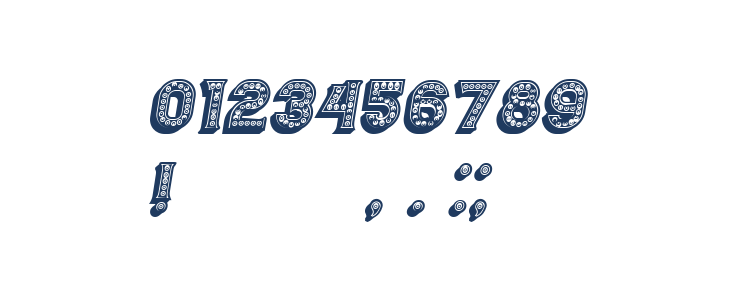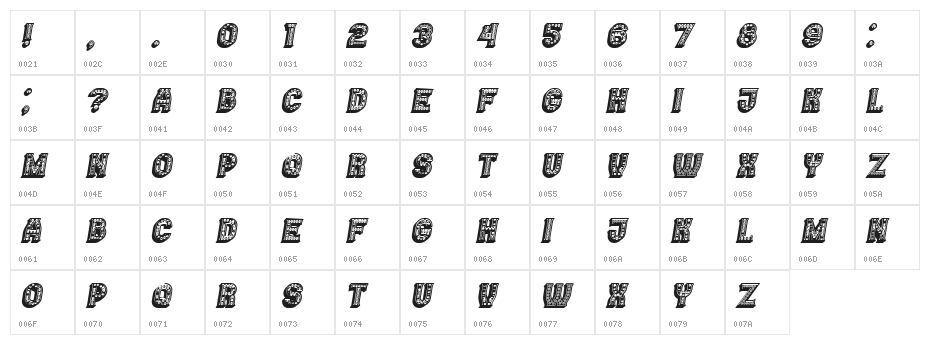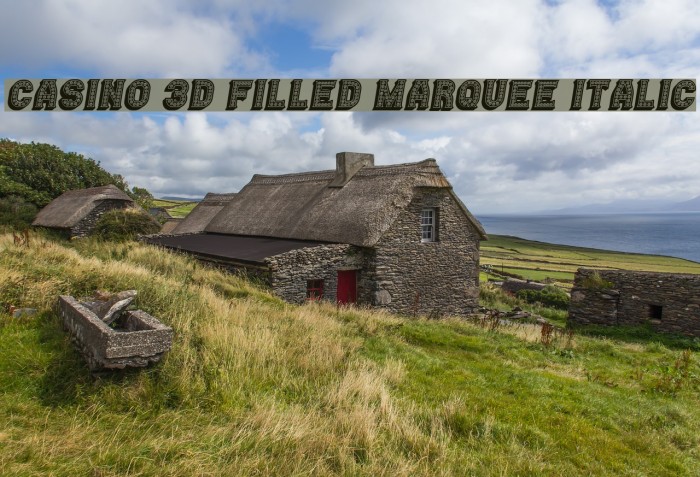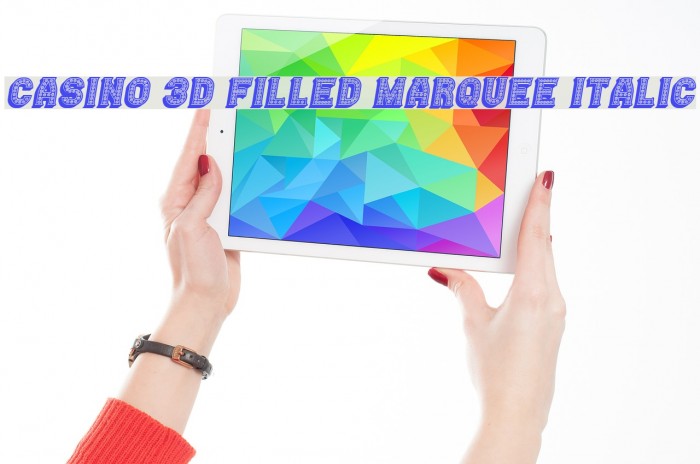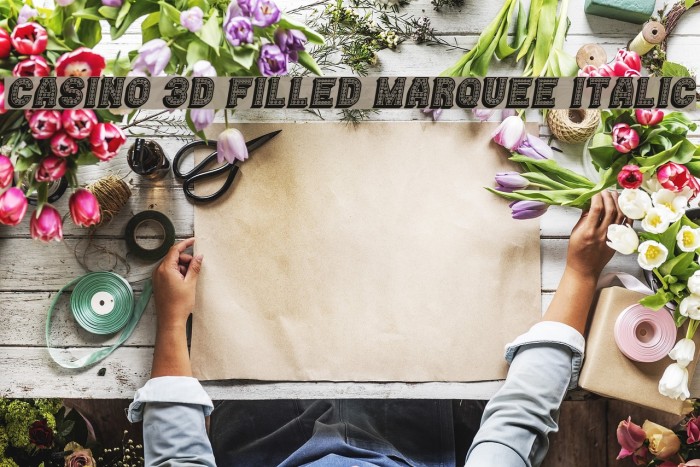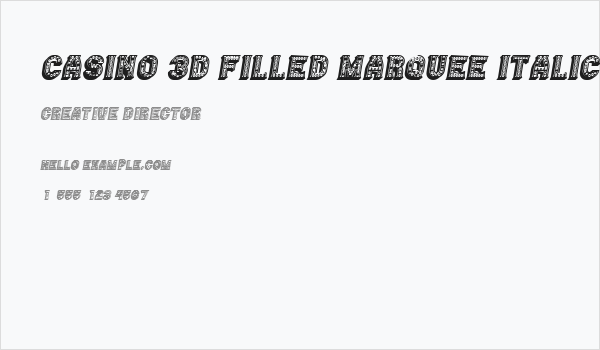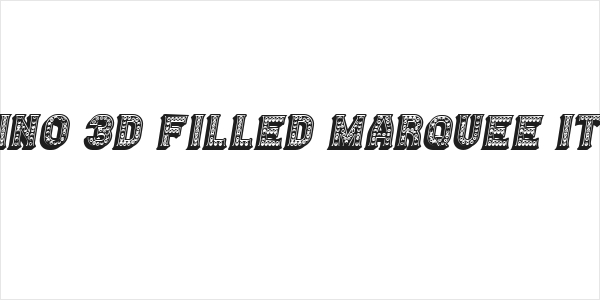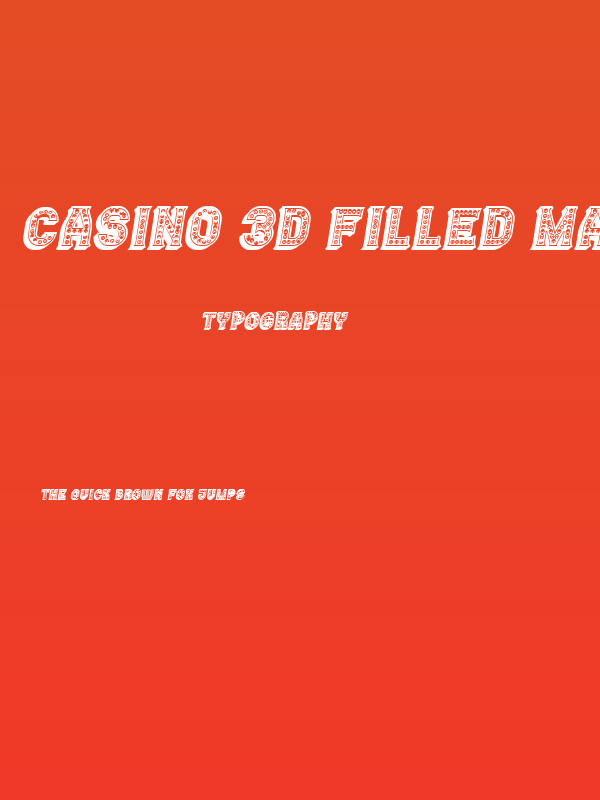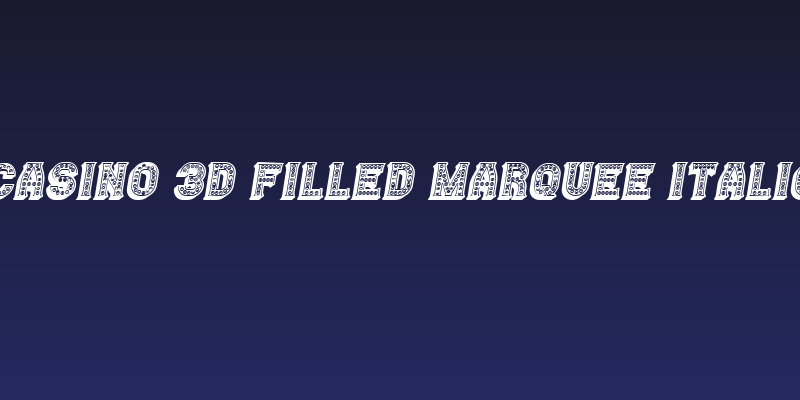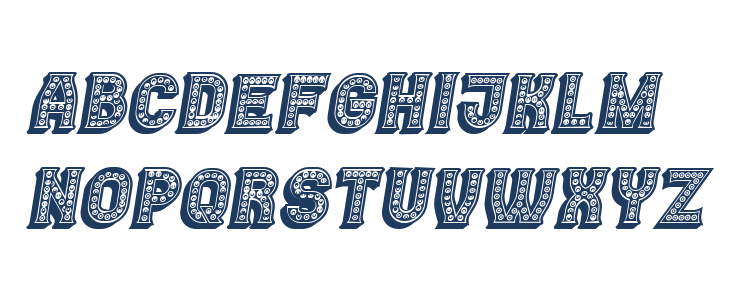
Casino 3D Filled Marquee Italic Font
Casino 3D Filled Marquee Italic Description
This font features a bold, three-dimensional design with a filled marquee style, reminiscent of classic casino signage. Each character is adorned with circular bulb-like elements that create a vibrant and eye-catching effect. The italic slant adds a dynamic and playful touch, enhancing its decorative appeal. The font's structure is robust and impactful, making it ideal for attention-grabbing displays. The characters are well-defined with a consistent stroke width, contributing to its bold and confident appearance. This font is perfect for projects that require a sense of excitement and glamour.
| Proposed Projects | Ideal for casino-themed events, signage, posters, and any project requiring a bold, glamorous touch. |